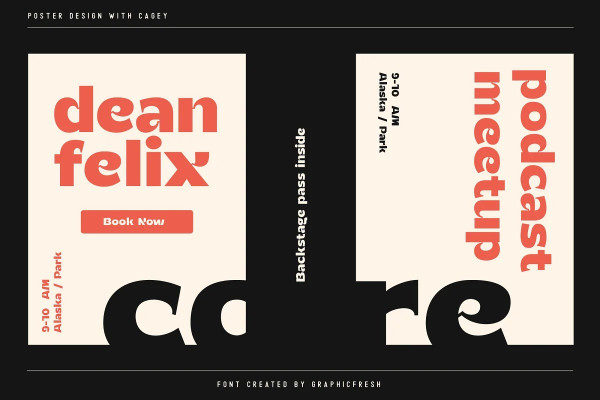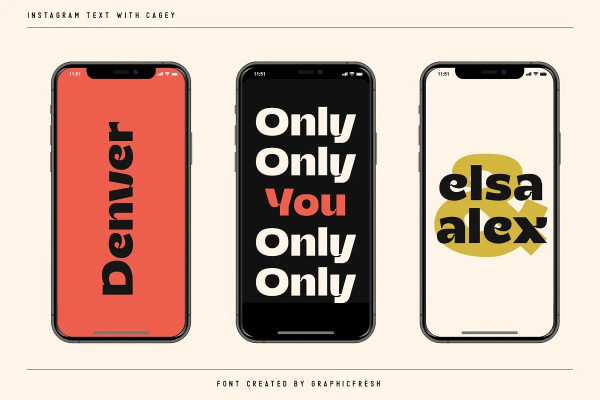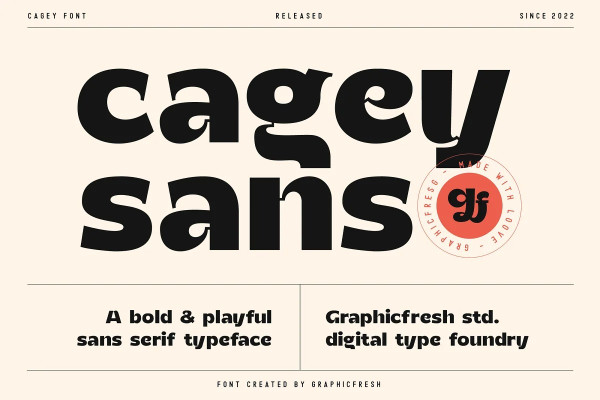
Cagey Sans Font
Cagey Sans Font – The Bold Retro Font. I named this font cagey. Another picture of the ingenuity of the ancients when they found a masterpiece. Through this font, I want to reminisce and reminisce about the past. This font is synonymous with 70s or 80s style design visuals, Bold and strong. I hope you enjoy using this font and can come up with clever and brilliant ideas in your designs.